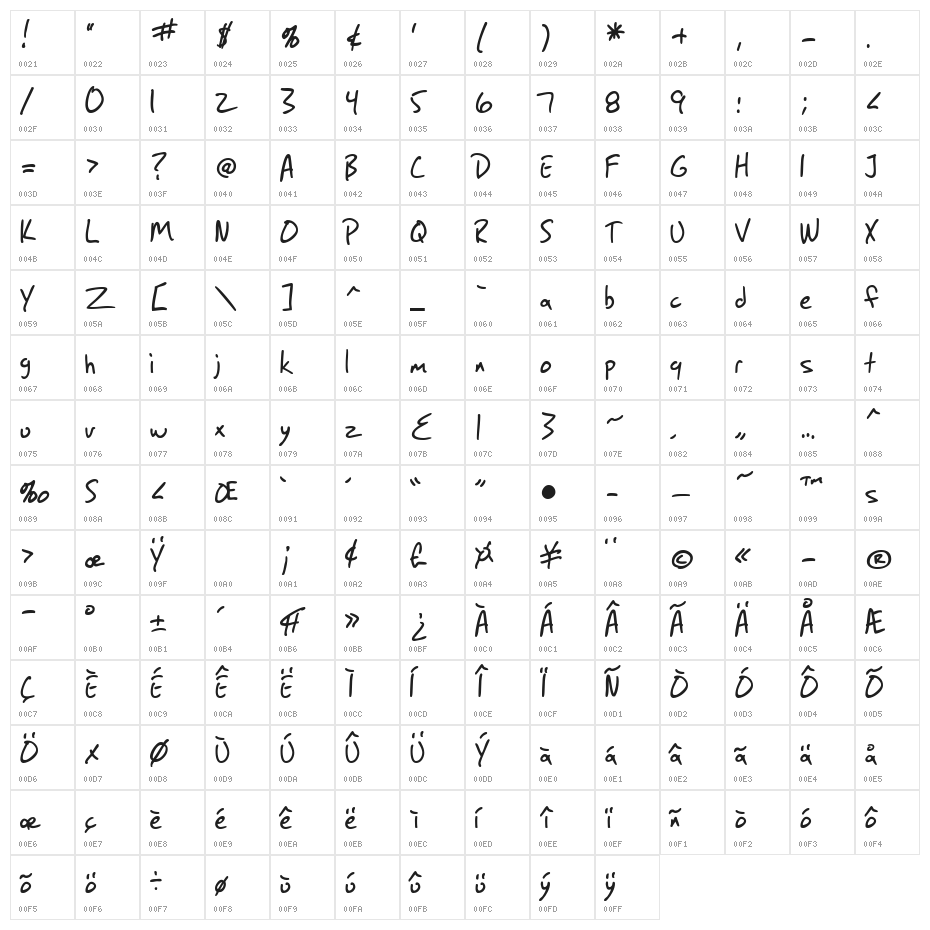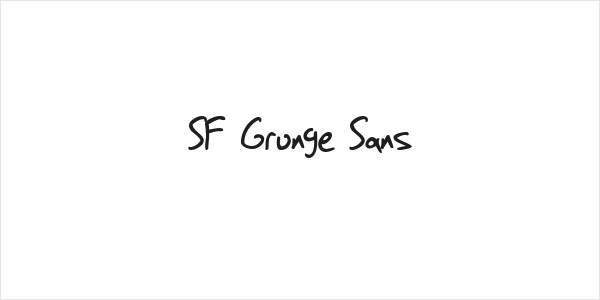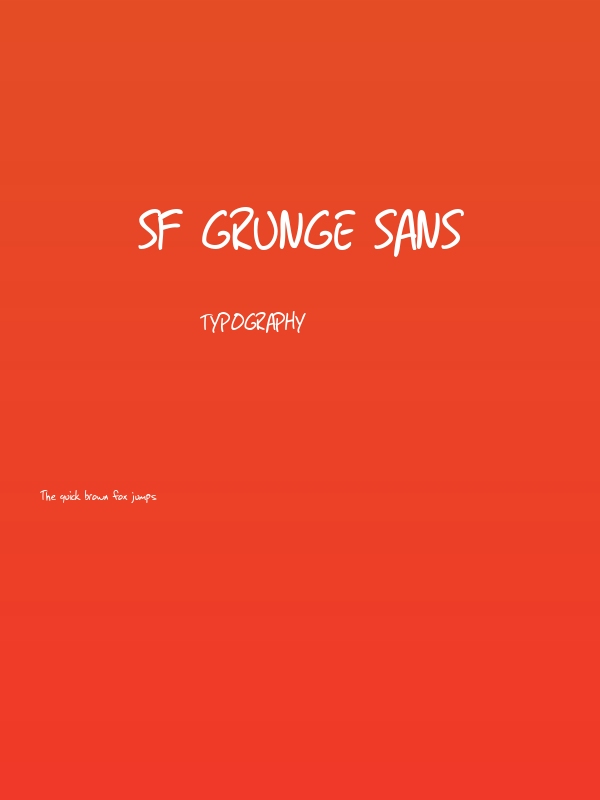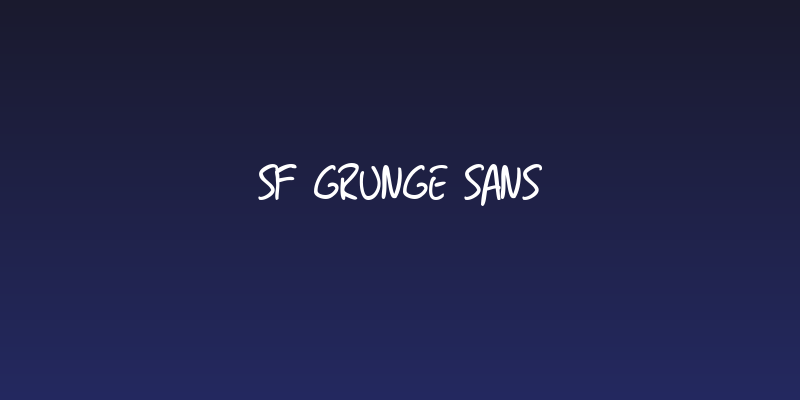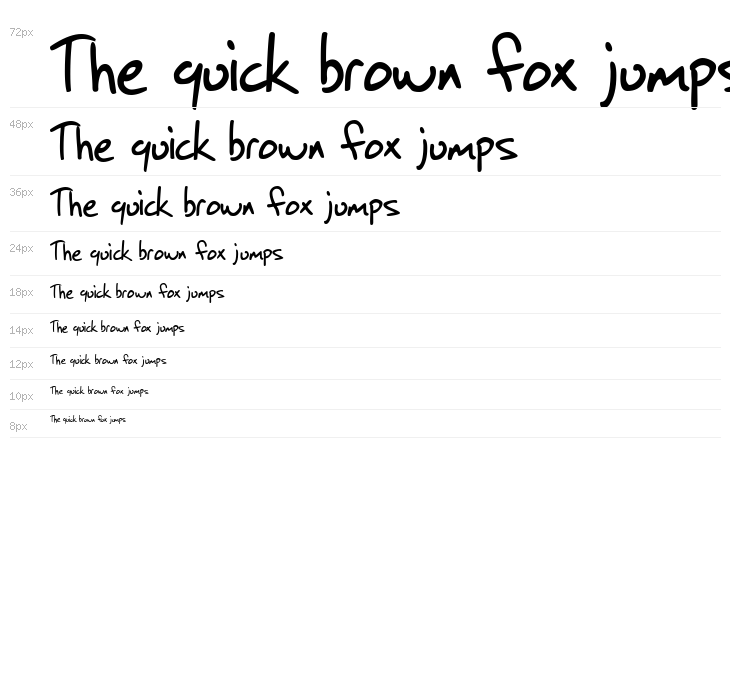
SF Grunge Sans Font
SF Grunge Sans Description
This font features a casual, handwritten style with a grunge aesthetic. The characters are irregular and slightly rough around the edges, giving it a raw and authentic feel. The uppercase and lowercase letters maintain a consistent flow, while the numbers and special characters complement the overall style. The strokes are uneven, adding to the font's informal and relaxed appearance. This font is perfect for projects that require a personal touch or an edgy, urban vibe.
| Use Case | Logos, Posters, Informal Invitations |
| Proposed Projects | Ideal for streetwear branding, music album covers, urban-themed posters, and personal blogs. |